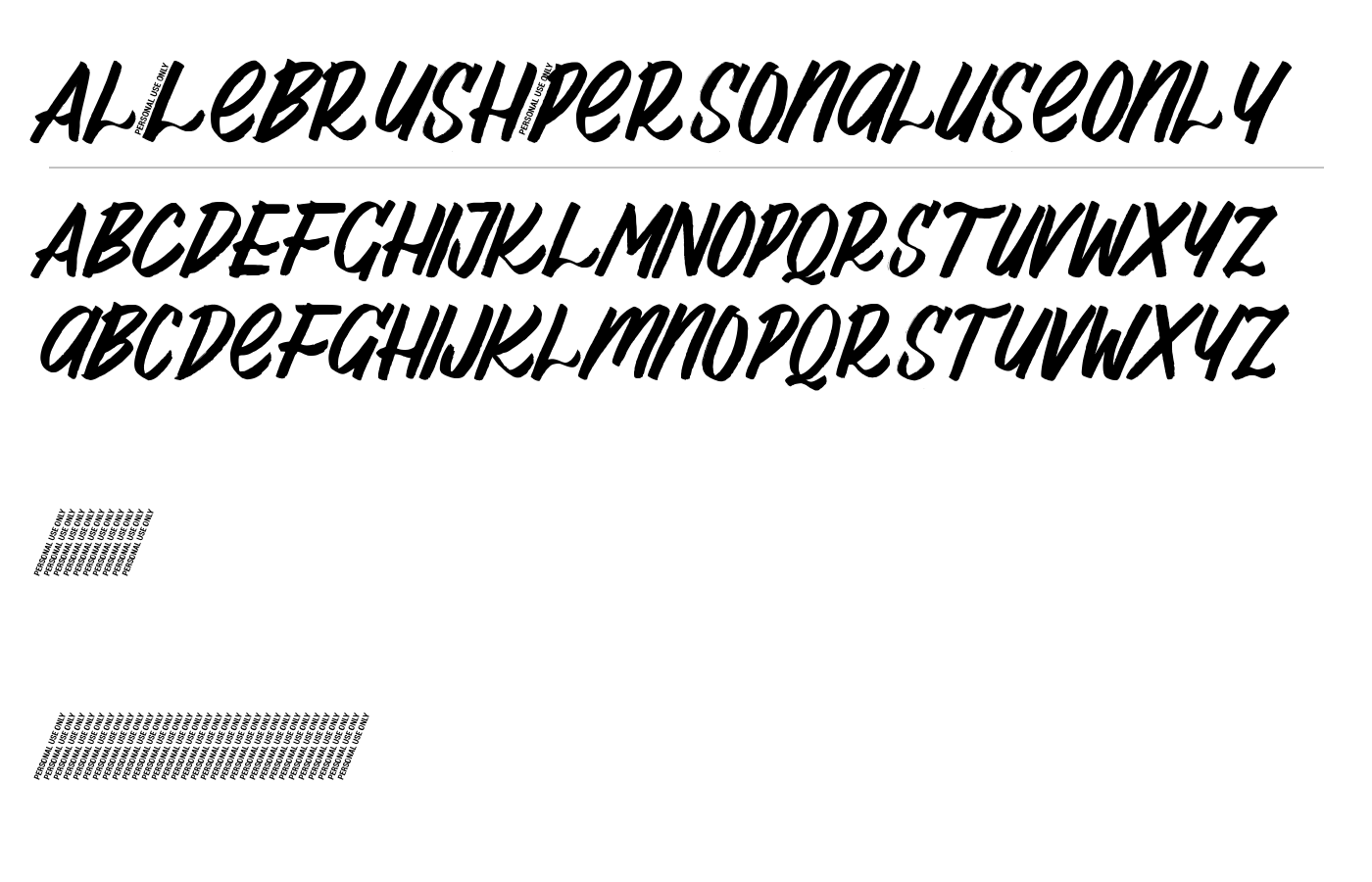
Al_Lebrush_PersonalUseOnly is a bold, energetic brush script font that captures a hand-painted, casual style with dynamic strokes and a slightly condensed width. Its lively, slightly slanted letterforms and textured edges give it a personal, artistic feel, making it ideal for creative branding, posters, and expressive headlines. This font works well where a sense of spontaneity and warmth is desired, adding a natural and approachable touch to any project.
Al_Lebrush_PersonalUseOnly Font
About Al_Lebrush_PersonalUseOnly Font